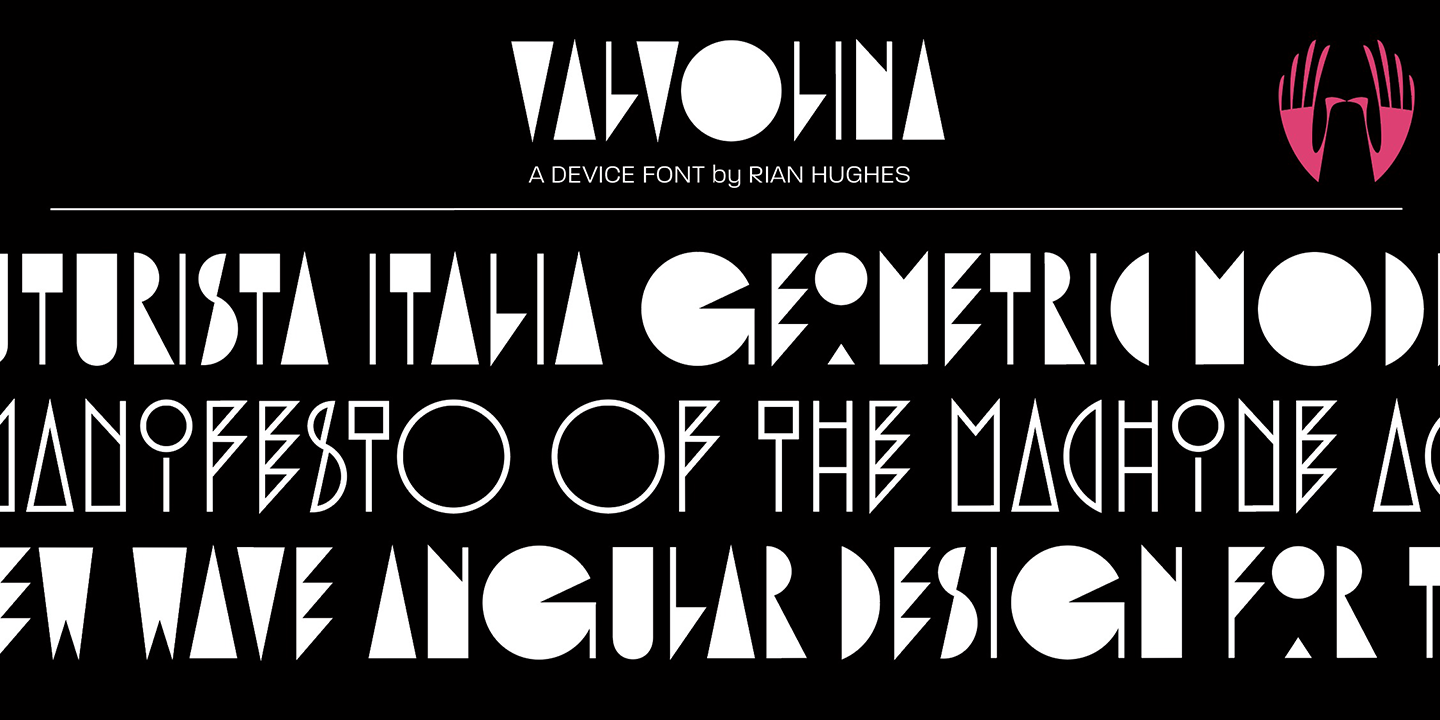
Valvolina Font is a dynamic and wonderfully energetic typeface, perfectly suited for projects that aim to evoke speed, performance, and a powerful sense of forward motion. Imagine it gracing the branding for an automotive service, adding a sleek and robust edge to sports equipment packaging, or bringing a vibrant personality to racing event posters and championship promotions. It's also an excellent choice for crafting striking headlines for technology advertisements, designing impactful social media graphics for high-energy brands, or infusing digital content and interfaces with a modern and assertive vibe. If you're looking to convey efficiency, dynamism, and an undeniable spirit of cutting-edge performance, Valvolina Font is an outstanding selection.
What makes Valvolina Font so exciting? It’s its unique ability to combine a clean, often slightly condensed or streamlined aesthetic with a sense of fluid power, making it both visually appealing and highly practical for diverse applications. This font often features sharp angles, precise curves, and a consistent, strong presence that gives it an undeniable charisma and visual impact. Despite its often utilitarian character, Valvolina Font is meticulously designed to maintain excellent readability, ensuring your message is communicated clearly and with a powerful, direct tone. Designers will appreciate its versatility in creating designs that feel both visually assertive and deeply memorable, making it a go-to choice for brands and projects that aim to connect with their audience through themes of speed, precision, and reliable performance.
The Valvolina Font family is typically designed to showcase a singular, distinctive display or bold style that perfectly encapsulates its unique appeal. While it may not feature extensive weight variations like a traditional text font, its strength lies in its inherent personality and often includes stylistic alternates or simple ligatures that enhance its streamlined aesthetic. These subtle details allow Valvolina Font to maintain its cohesive and high-impact visual identity across various applications, from commanding headlines for sports events to powerful product endorsements. Discover the formidable capabilities of Valvolina Font Free Download and infuse your designs with an unforgettable sense of dynamism and efficiency.